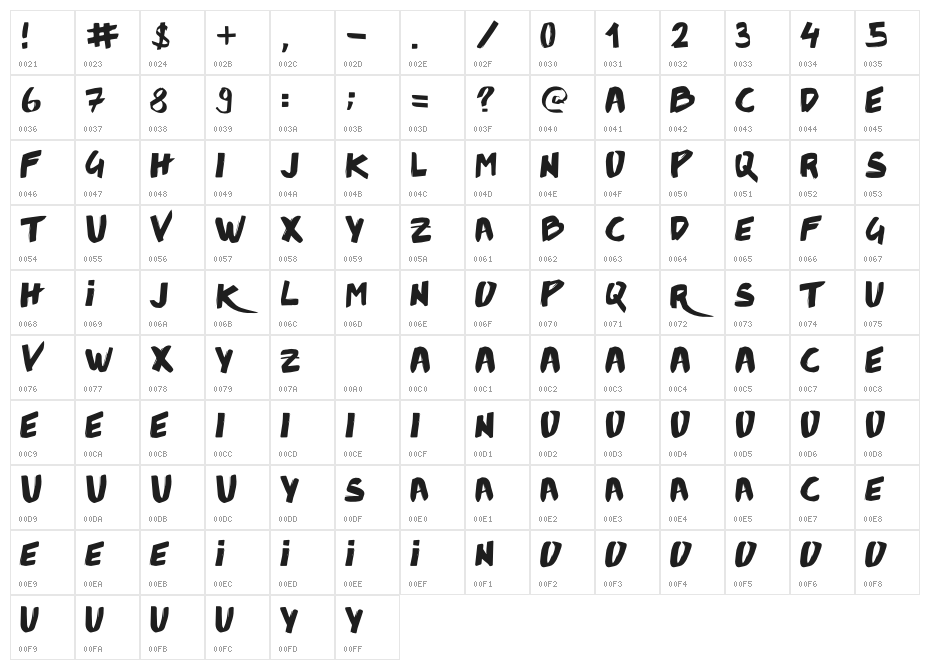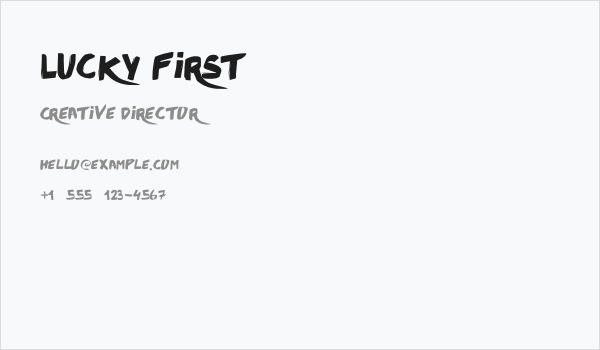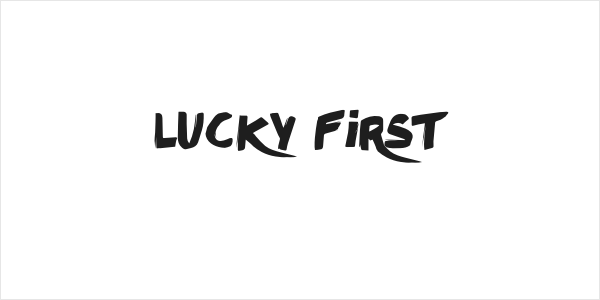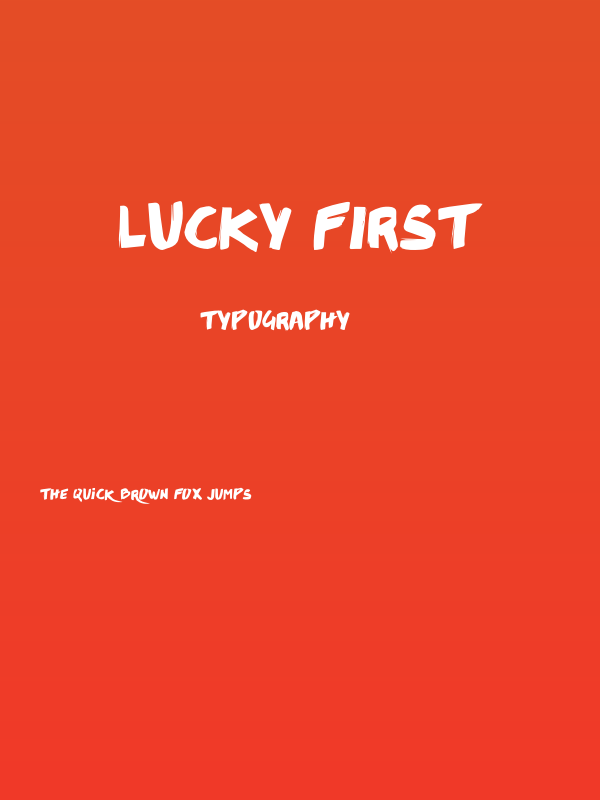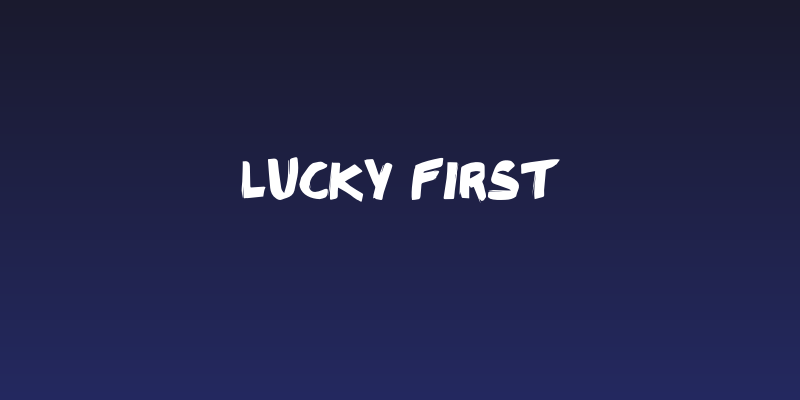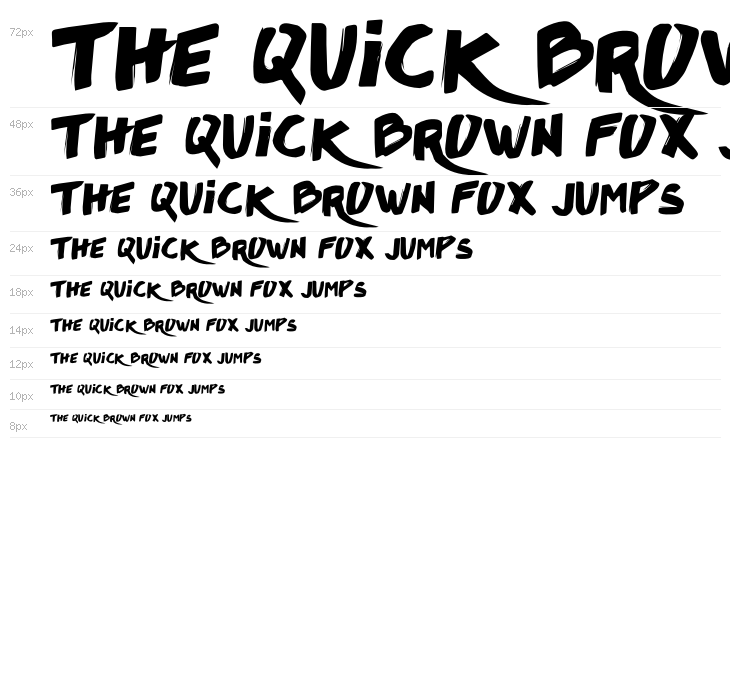
Lucky First Font
Lucky First Description
This font features a bold and dynamic brush script style, characterized by its energetic and expressive strokes. The letters have a hand-painted appearance, with varying thickness that adds a sense of movement and spontaneity. The uppercase and lowercase letters are designed with a casual flair, making them suitable for creative and informal projects. The numerals and special characters maintain the same lively aesthetic, ensuring consistency across all elements. This font's unique style is perfect for adding a personal touch to any design.
| Proposed Projects | Ideal for branding, posters, invitations, and any project requiring a personal, artistic touch. |